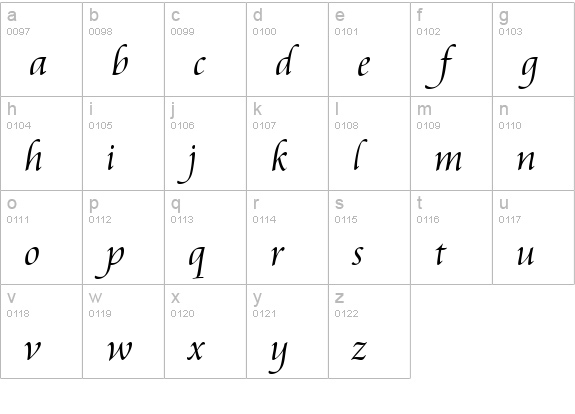
Cataneo Light OSF Font Details
Cataneo Light OSF is a refined, elegant variant in the Cataneo typeface family \xE2\x80\x94 well suited to elegant body text, refined sub-headings, and luxury branding.
Cataneo Light OSF is a sleek and modern typeface that exudes elegance and sophistication. With its delicate strokes and clean lines, this font is perfect for a wide range of design projects, from branding and editorial design to web design and advertising. The Cataneo Light OSF font is versatile and easy to read, making it ideal for both print and digital applications. Its classic yet contemporary style makes it a popular choice among designers looking for a timeless and stylish typeface. What's even better is that Cataneo Light OSF is available for free download at FontsMarket.com. So whether you're working on a personal project or a client's design, you can easily access this beautiful font without breaking the bank. Don't miss out on the opportunity to enhance your designs with the elegant Cataneo Light OSF font today!